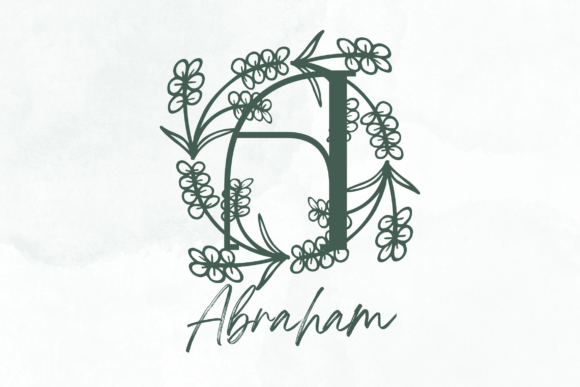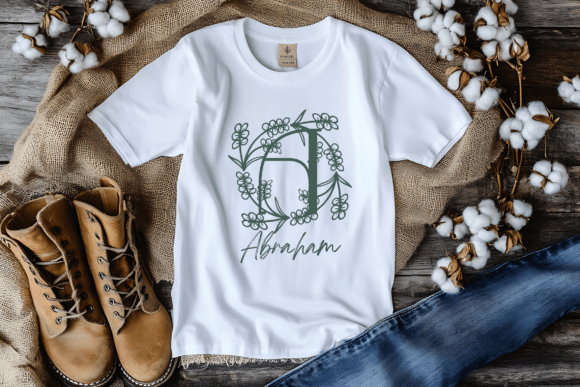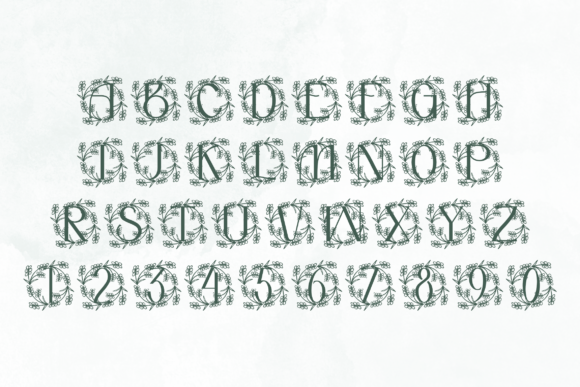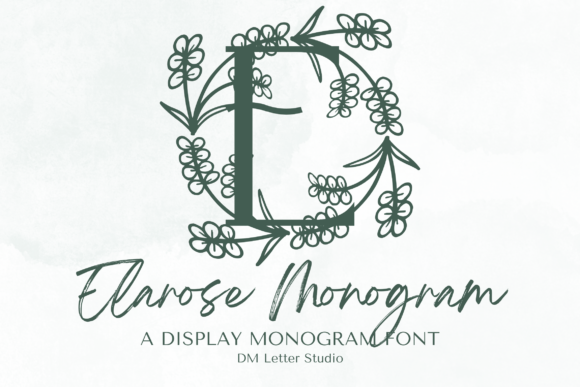
Elarose Monogram Font: Elevate Your Designs with Timeless Elegance
In the world of typography, few fonts capture the essence of luxury and sophistication as effortlessly as Elarose Monogram. This graceful serif font is designed with timeless elegance and refined details, making it the perfect choice for projects that demand a bespoke feel. Whether you’re a designer looking to create stunning logos, wedding invitations, or upscale packaging, or a crafter seeking to personalize gifts with a touch of class, Elarose Monogram is the ideal companion for your creative journey.
A Classic yet Contemporary Design
Elarose Monogram draws inspiration from vintage letterpress aesthetics and modern minimalism, blending both worlds seamlessly. The font’s clean lines and serif structure meet subtle ornamental touches, creating a monogram style that feels both regal and contemporary. Every uppercase letter carries a sense of classic sophistication, exuding an air of refinement and poise.
One of the standout features of Elarose Monogram is its versatility. The font includes an A–Z set of uppercase letters, numerals, punctuation, and multilingual support, making it suitable for use across various languages and platforms. This broad usability ensures that designers and crafters can experiment with different projects, from nameplate designs and wedding signage to stationery, embroidery, and engraved keepsakes.
Elarose Monogram is fully compatible with popular cutting machines like Cricut, making it an excellent choice for crafters who want to create personalized gifts and decorations. Designers, on the other hand, will appreciate the font’s luxurious feel and flexibility, which can be leveraged to create stunning logos, branding materials, and marketing collateral.
Some of the key applications for Elarose Monogram include:
- Logos and branding: Create memorable and sophisticated logos that reflect your brand’s values and personality.
- Wedding invitations and signage: Add a touch of elegance to your wedding stationery and decorations.
- Upscale packaging: Elevate your product packaging with a luxurious and bespoke feel.
- Personalized gifts: Create unique and thoughtful gifts for special occasions.
- Stationery and embroidery: Add a touch of sophistication to your stationery, embroidery, and other textile designs.
Elarose Monogram is a comprehensive font that includes:
- A–Z set of uppercase letters
- Numerals and punctuation
- Multilingual support
Elarose Monogram Font is a timeless and elegant serif font that brings a touch of luxury and sophistication to any design project. Its versatility, flexibility, and broad usability make it an excellent choice for designers and crafters looking to create stunning logos, wedding invitations, upscale packaging, and personalized gifts. With its classic yet contemporary design, Elarose Monogram is sure to become a staple in your typography collection.